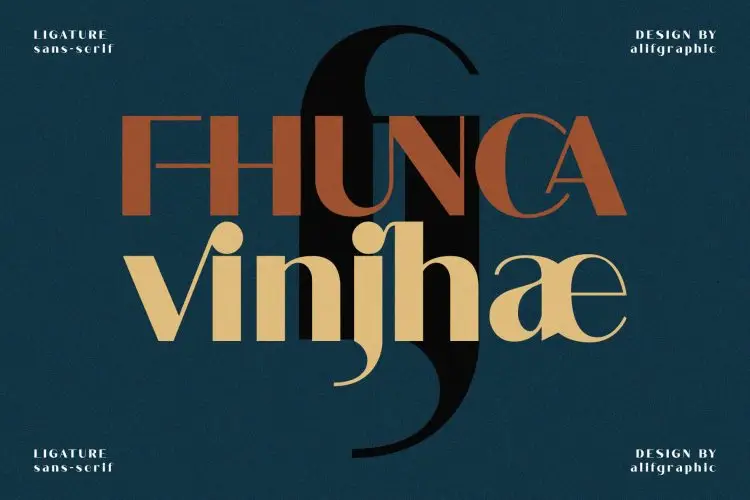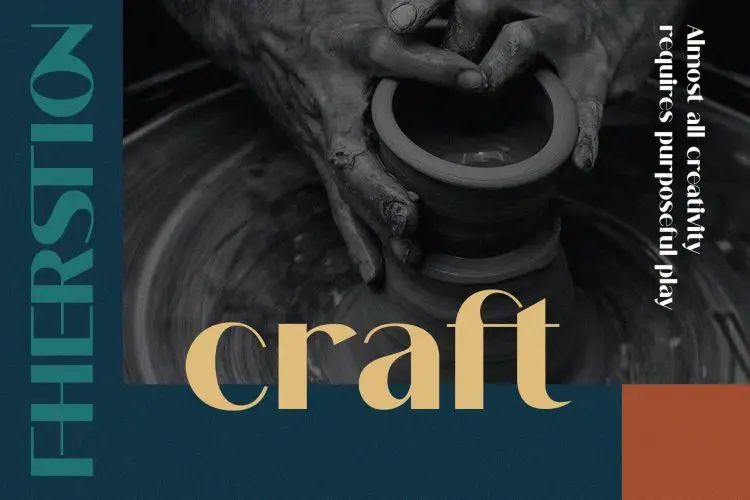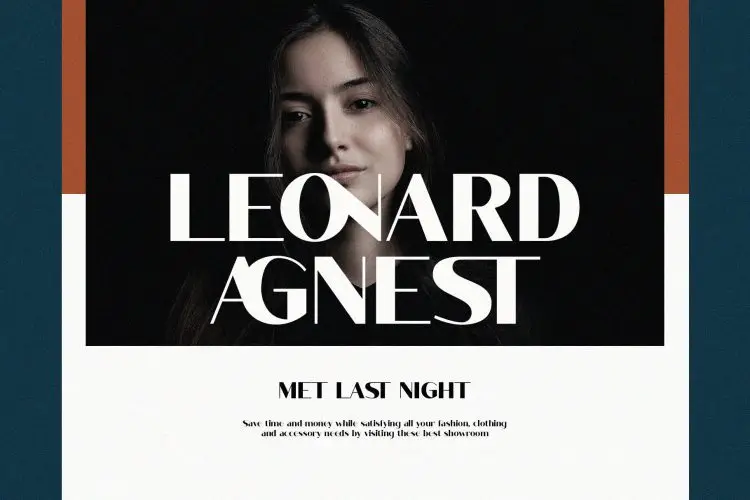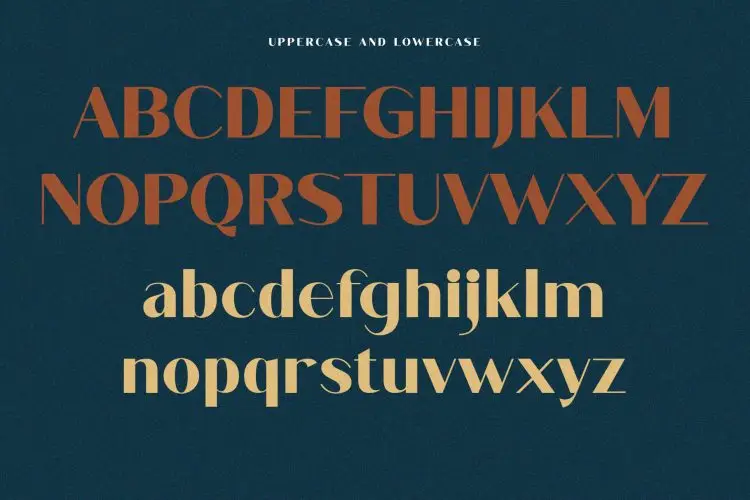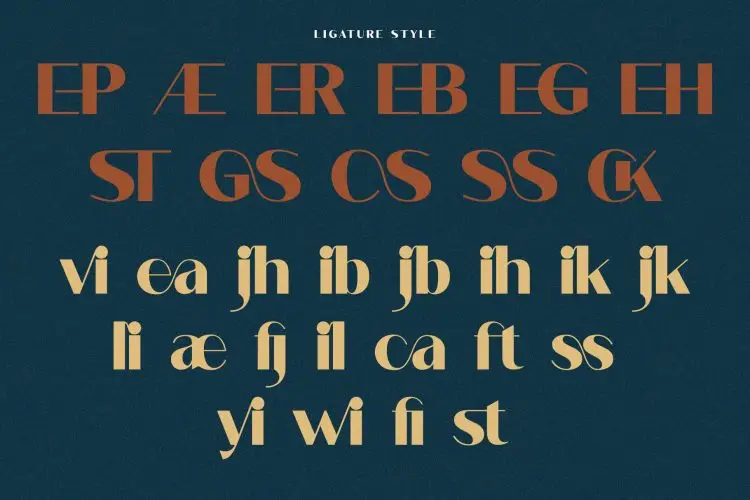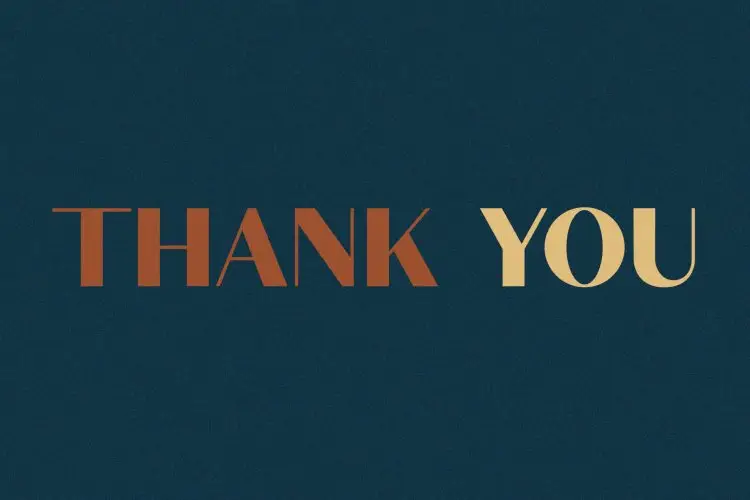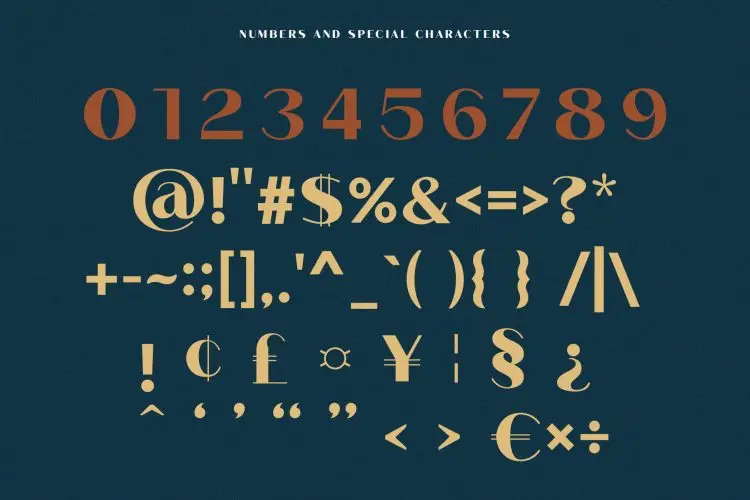
Fhunca Vinjhae Ligature Sans Serif Font
Fhunca Vinjhae Modern Ligature Font
Fhunca Vinjhae Ligature Sans Serif Font
Fhunca Vinjhae Modern Ligature Font
Fhunca Vinjhae Ligature Sans Serif Font
Introducing Fhunca Vinjhae, a ligature sans-serif font that radiates modern elegance and sophistication. With its clean and neat letterforms, Fhunca Vinjhae is ideal for a variety of creative projects, from luxury branding to advertising campaigns and social media designs. This font strikes the perfect balance between modern design and timeless style, ensuring that your typography stands out with sophistication and clarity.
As a PUA encoded font, Fhunca Vinjhae grants you easy access to all its beautiful glyphs and swashes, giving you the freedom to create with flexibility and ease. Whether you’re working on visual identity projects or personal branding, this font ensures that your designs are both visually captivating and highly functional.
Ideal for:
• Luxury Brands
• Advertising Campaigns
• Visual Identity Projects
• Social Media Designs
• Personal Branding
Features:
• Ready for Creative Expression
• Immaculately Crafted Letters
Fhunca Vinjhae is a ligature sans-serif font that blends modern elegance with creativity. Perfect for luxury branding, advertising, and personal branding, it elevates any design project.